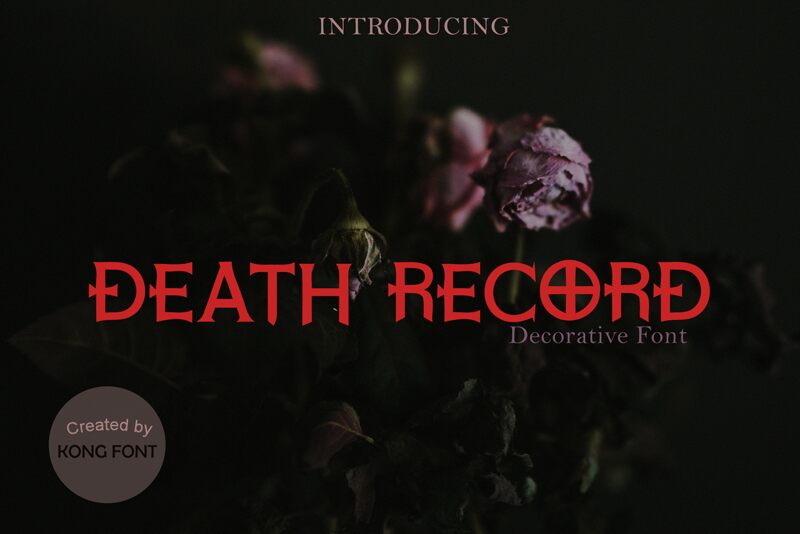
The Death Record Italic font, designed by Kong Font, is a captivating addition to the gothic typeface family. With its celtic style and semi-light weight, this font carries a unique and mysterious energy that's perfect for designs that require a touch of the macabre. The semi-expanded width adds to its overall aesthetic appeal, making it suitable for various projects such as book covers, posters, album art and even tattoo designs! If you're looking for a font that will add an element of darkness to your work while still retaining its elegance and readability, Death Record Italic is definitely worth considering.
Death Record Italic